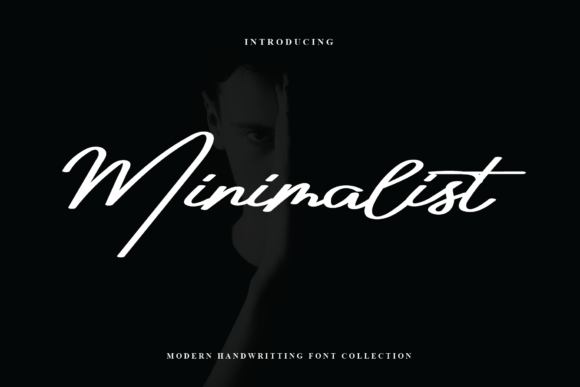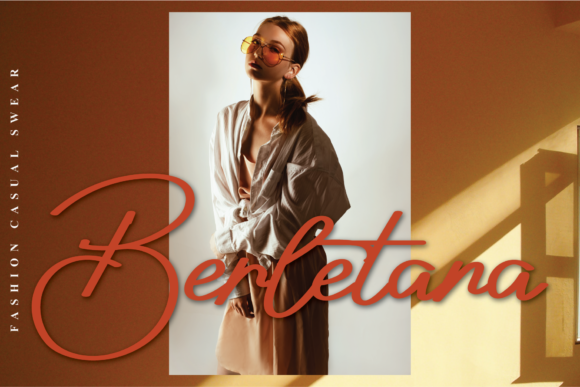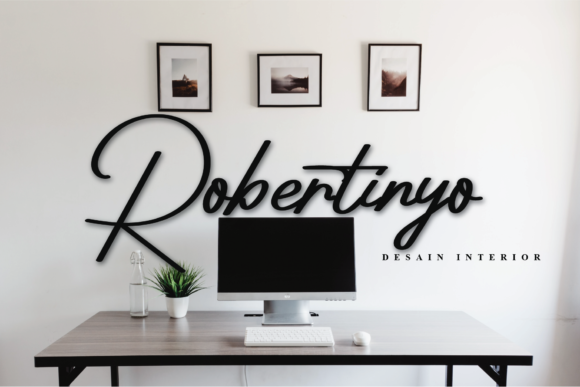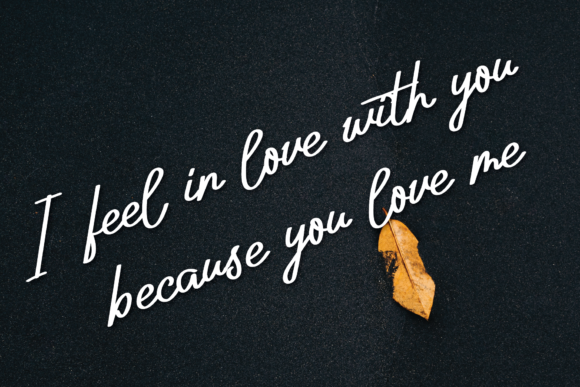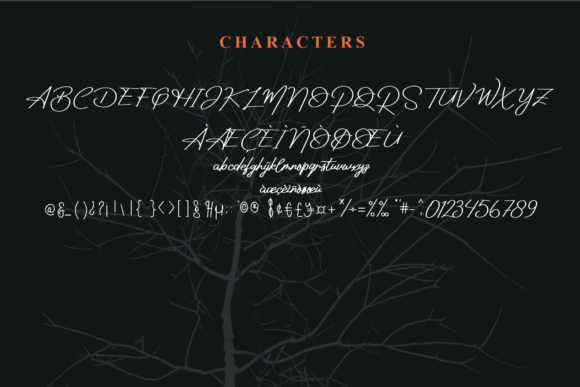
Minimalist Font
About Minimalist Font
“Minimalist” emerges as a delicate and elegant handwritten font, where each stroke is a testament to the art of simplicity. With distinct and finely balanced letters, this font stands as a masterpiece in its own right. Prepare to be captivated by its remarkably versatile style, a blank canvas awaiting your creative touch to craft spectacular designs.
In a world often characterized by complexity, “Minimalist” dares to stand apart, celebrating the beauty of less-is-more. Its refined strokes and harmonious proportions create a sense of sophistication that resonates with those who encounter it. As you integrate this font into your projects, you’ll discover a world of possibilities where even the most minimalistic design can convey powerful messages.
The allure of “Minimalist” goes beyond its visual appeal; it carries an inherent elegance that transcends mere letters. Its handwritten nature evokes authenticity and human touch, making your designs not only visually pleasing but emotionally resonant. Every character becomes a stroke of artistry, contributing to the tapestry of your creative vision.
“Minimalist” offers a versatile canvas for your design endeavors. Its well-balanced letters enable it to harmonize seamlessly with various styles, themes, and purposes. From branding to headlines, invitations to digital graphics, this font lends an air of understated elegance that enhances the impact of your message.
In a world where distractions abound, “Minimalist” becomes a breath of fresh air. It allows your designs to shine by letting the content take center stage, while its elegant presence quietly enhances the overall aesthetic. Let “Minimalist” be the guiding light that showcases the power of simplicity and the beauty of understatement.
As you embark on your creative journey with “Minimalist,” you’ll find that its delicate elegance breathes life into your projects. Let its balanced letters be the brushstrokes that add finesse to your designs, elevating them to new heights of sophistication. Embrace the versatility of “Minimalist” and watch as it transforms your creations into spectacular showcases of minimalist beauty, leaving a lasting impression on all who behold them.